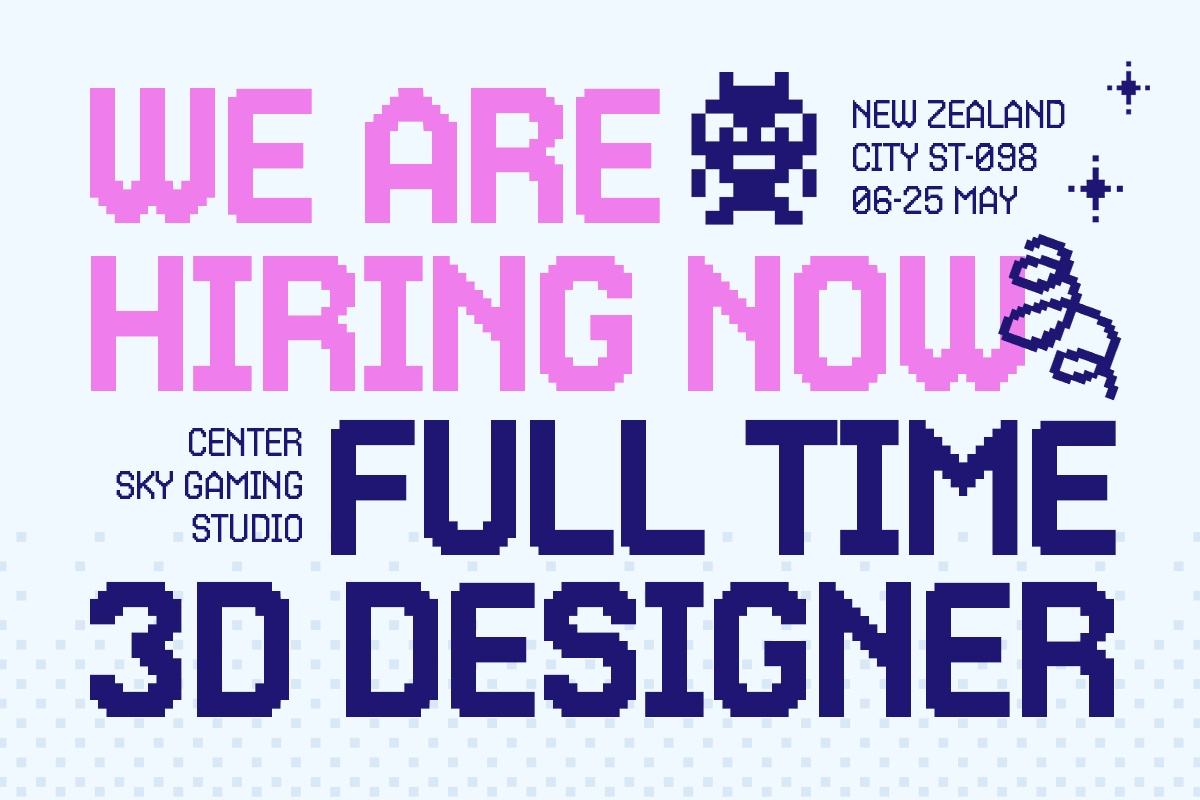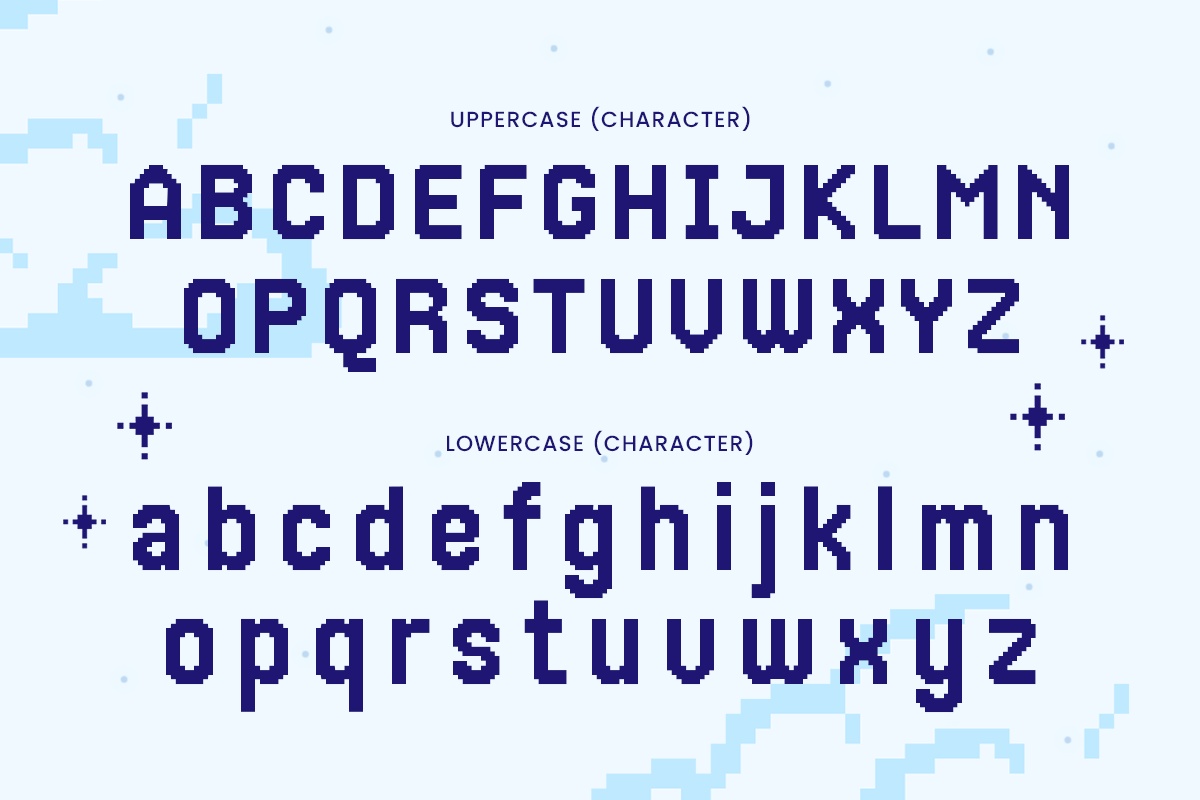
Raw Pixel is a bold bitmap pixel font that brings the nostalgic charm of classic 8-bit and 16-bit gaming to your designs. Inspired by old-school arcade games, computer interfaces, and digital pixel art, this font captures the retro essence of pixel typography while maintaining crisp readability.
Perfect for game design, streaming overlays, posters, digital artwork, and tech-inspired branding, Raw Pixel delivers a clean, blocky aesthetic with a touch of glitchy nostalgia. Whether you’re creating a throwback gaming logo, a futuristic UI, or a fun merchandise design, this pixel-perfect font ensures a sharp and stylish result.
Raw Pixel – Bitmap Pixel Decorative Font